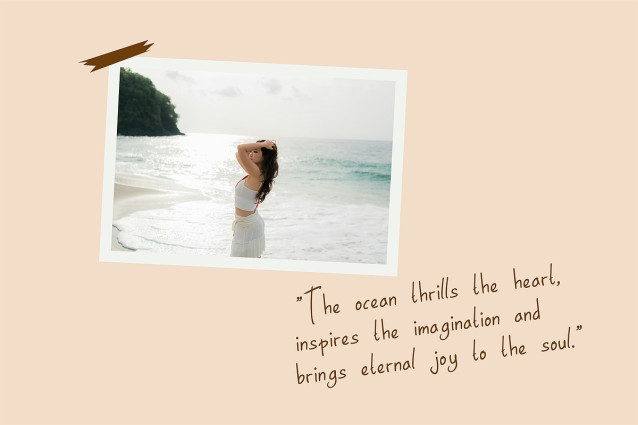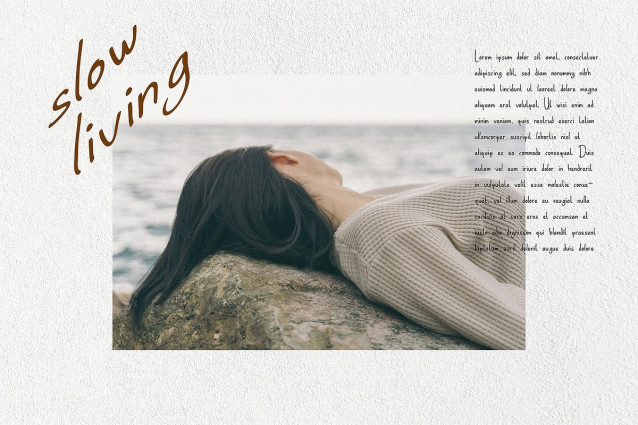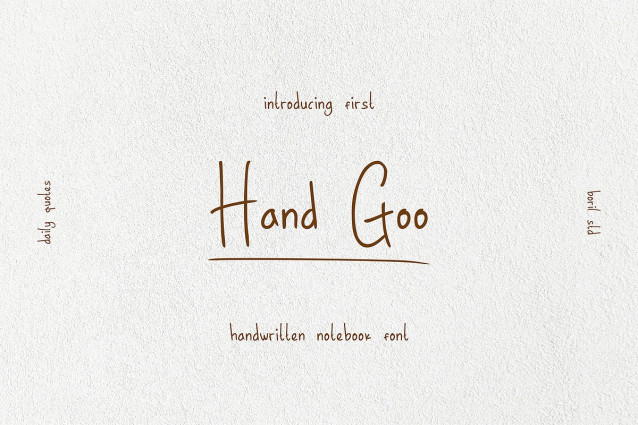
Hand Goo Font
Hand Goo Font a handwritten, casual aesthetic theme with a minimalist, natural, and personal feel. The letterforms resemble thin handwriting created with a fine pen or light brush pen.